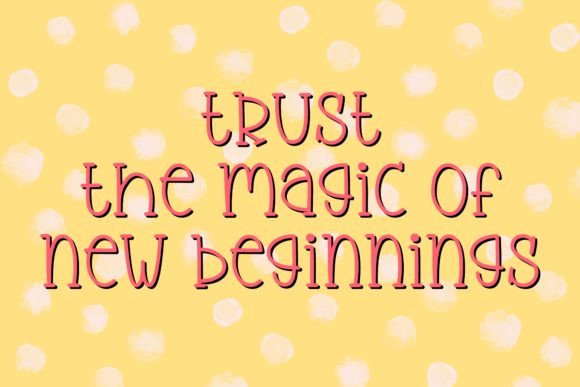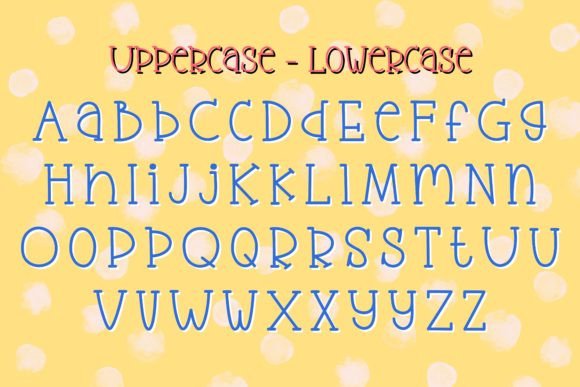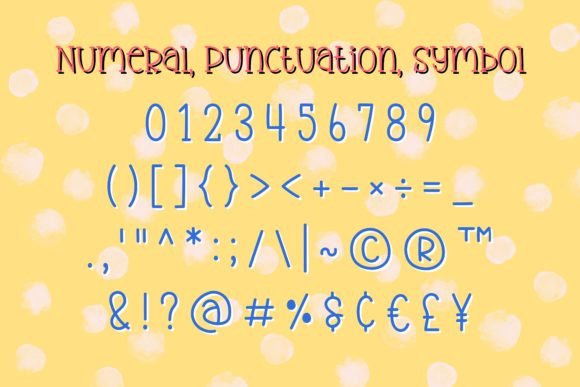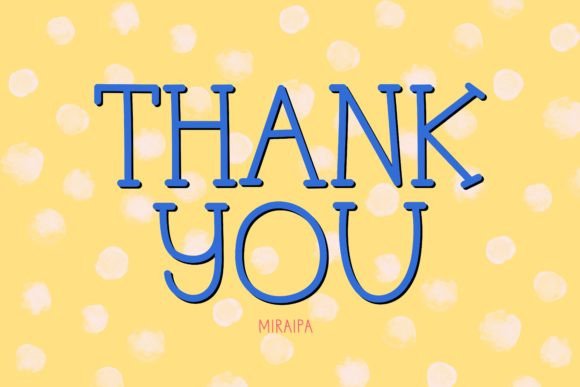
Introducing Bright Day Font: The Cute and Friendly Handwritten Serif Font
Are you tired of using the same old fonts for your creative projects? Look no further! Bright Day Font is here to bring a fresh and playful touch to your designs. This beautifully crafted handwritten serif font is designed to become your new favorite, and for good reason. With its cute and friendly vibe, Bright Day Font has the potential to elevate each of your creative ideas to the highest level!
What Makes Bright Day Font So Special?
Bright Day Font is more than just a font – it’s a design experience. Its unique handwritten serif style is carefully crafted to add a personal touch to your projects, making them stand out from the crowd. Whether you’re a designer, crafter, or DIY enthusiast, this font is perfect for anyone looking to add a bit of whimsy and charm to their work.
Key Features of Bright Day Font
- Cute and Friendly Design: Bright Day Font boasts a playful and approachable design that’s sure to capture the hearts of your audience.
- Handwritten Serif Style: The font’s handwritten serif style adds a touch of elegance and sophistication to your designs.
- Versatile and Adaptable: Bright Day Font is perfect for a wide range of creative projects, from branding and advertising to crafting and DIY.
- Easily Readable: The font’s clear and legible design ensures that your message is conveyed with ease, making it perfect for both digital and print applications.
Who Can Benefit from Using Bright Day Font?
Bright Day Font is an excellent choice for a variety of designers and crafters, including:
- Graphic Designers: Add a personal touch to your branding, advertising, and marketing materials with this unique font.
- Crafters and DIY Enthusiasts: Use Bright Day Font to create charming and eye-catching titles, headings, and labels for your handmade products.
- Stationery and Journal Designers: Add a touch of whimsy and charm to your stationery, journals, and planners with this beautiful font.
- Web Designers: Use Bright Day Font to create engaging and readable digital content that stands out from the crowd.
Tips and Tricks for Using Bright Day Font
To get the most out of Bright Day Font, here are a few tips and tricks to keep in mind:
- Pair with Other Fonts: Combine Bright Day Font with other fonts to create a unique and visually appealing typography.
- Use for Headings and Titles: Bright Day Font is perfect for headings and titles, adding a touch of personality and flair to your designs.
| Font Name | Bright Day Font |
| Author | miraipa |